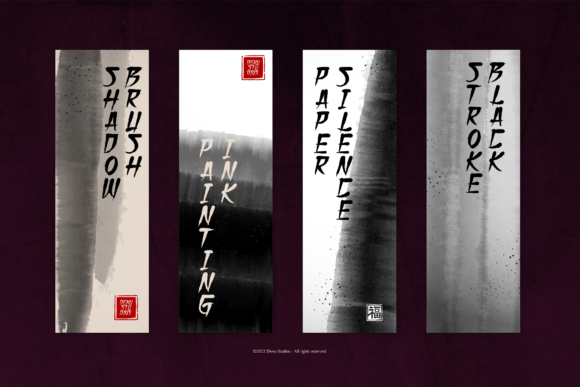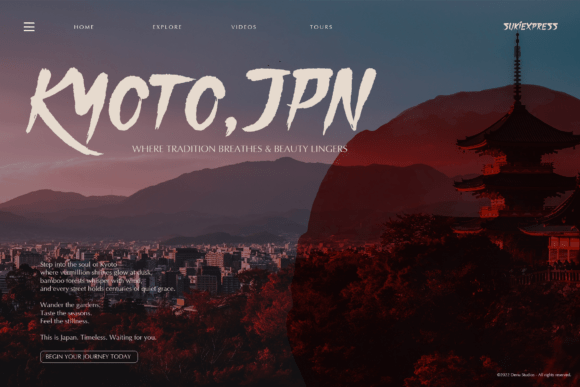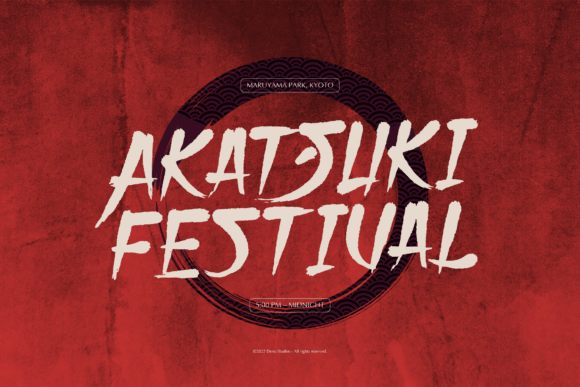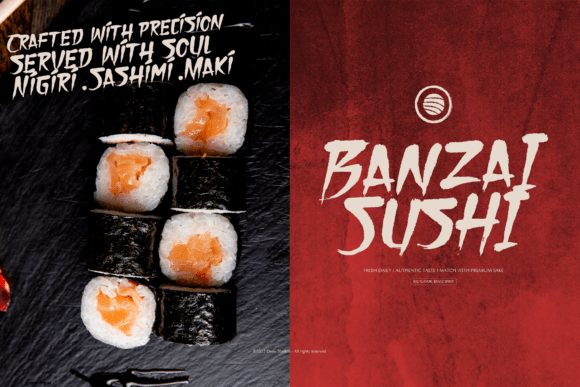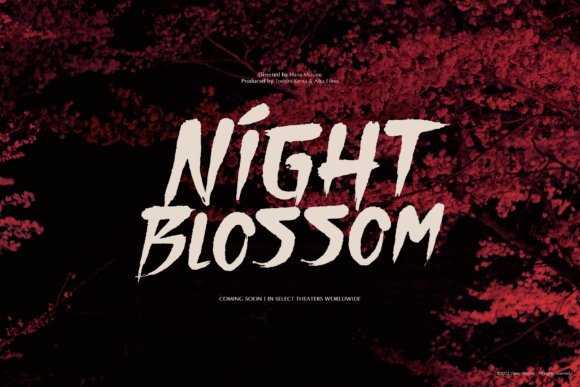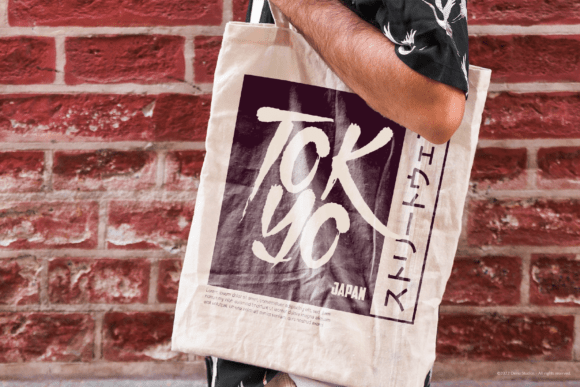
Aomine Kensai Font: Elevate Your Designs with a Touch of Japanese Elegance
Are you a designer or crafter looking for a unique and authentic Japanese font to add a touch of elegance to your projects? Look no further than Aomine Kensai Font. This beautiful Japanese brush font is perfect for a wide range of applications, from logos and branding projects to homeware designs, product packaging, and more.
What is Aomine Kensai Font?
Aomine Kensai Font is a traditional Japanese brush font that exudes a sense of cultural heritage and sophistication. Its unique brush strokes and elegant lines make it an ideal choice for designers and crafters who want to add a touch of Japan to their work. Whether you’re creating a logo, packaging, or a poster, Aomine Kensai Font is sure to impress.
What Can I Use Aomine Kensai Font For?
Aomine Kensai Font is incredibly versatile and can be used for a wide range of projects, including:
- Logos and branding projects: Create a unique and memorable brand identity with Aomine Kensai Font.
- Homeware designs: Add a touch of Japanese elegance to your homeware designs, such as ceramics, textiles, and more.
- Product packaging: Make your product stand out with beautiful and authentic Japanese packaging.
- Mugs and ceramics: Create stunning and unique designs for mugs, plates, and other ceramics.
- Quotes and posters: Add a touch of Japanese culture to your inspirational quotes and posters.
- Shopping bags and t-shirts: Create eye-catching designs for shopping bags and t-shirts.
- Book covers and name cards: Add a touch of elegance to your book covers and name cards.
- Invitation cards and greeting cards: Create beautiful and unique designs for special occasions.
- Labels and photography: Use Aomine Kensai Font to add a touch of Japanese culture to your labels and photography.
- Watermark and special events: Create stunning watermarks and designs for special events.
Why Choose Aomine Kensai Font?
So, why should you choose Aomine Kensai Font for your next project? Here are just a few reasons:
- Unique and authentic Japanese design: Aomine Kensai Font is a traditional Japanese brush font that will add a touch of authenticity to your designs.
- Versatile and flexible: Aomine Kensai Font can be used for a wide range of projects, from logos and branding to homeware designs and more.
- Elegant and sophisticated: Aomine Kensai Font exudes a sense of elegance and sophistication, making it perfect for high-end designs.
Tips for Using Aomine Kensai Font
Here are a few tips for getting the most out of Aomine Kensai Font:
- Experiment with different sizes and colors: Aomine Kensai Font looks great in a variety of sizes and colors, so don’t be afraid to experiment.
- Pair with other fonts: Aomine Kensai Font pairs well with other fonts, so try combining it with a sans-serif font for a modern look.
- Use for headlines and titles: Aomine Kensai Font is perfect for headlines and titles, where its elegant lines and brush strokes can really shine.
Aomine Kensai Font is a beautiful and authentic Japanese brush font that is perfect for designers and crafters looking to add a touch of elegance to their projects. With its unique design, versatility, and ease of use, Aomine Kensai Font is an excellent choice for a wide range of applications. Whether you’re creating a logo, packaging, or a poster, Aomine Kensai Font is sure to impress.